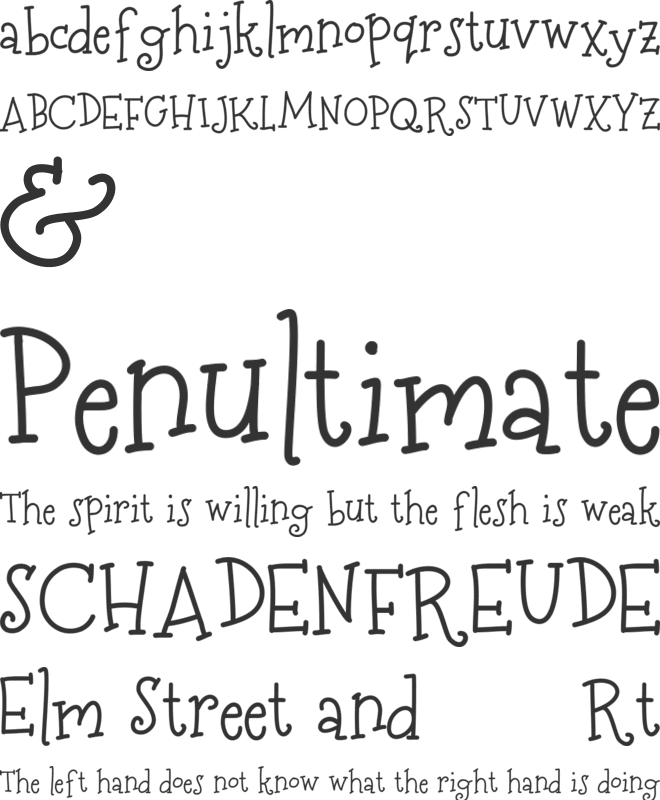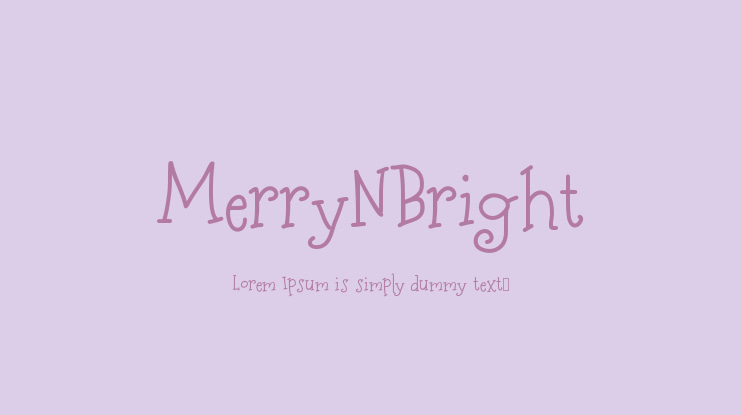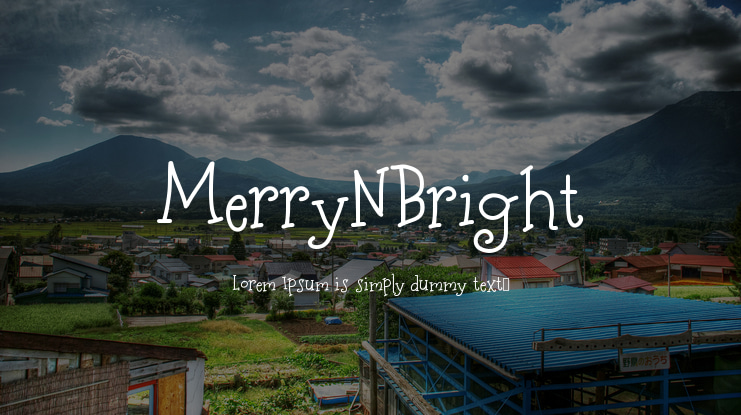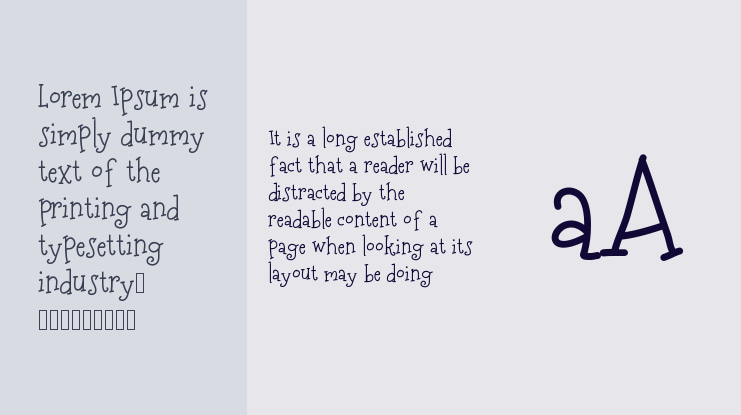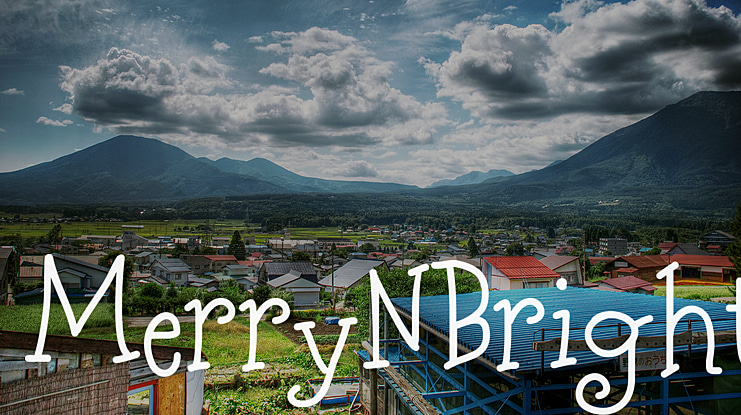
MerryNBright Font
"Merry & Bright" Font - This is a DEMO version.
This handwritten font is great for making greeting cards, kid's crafts, invitations, holiday crafts and more. Demo version is for personal use only.